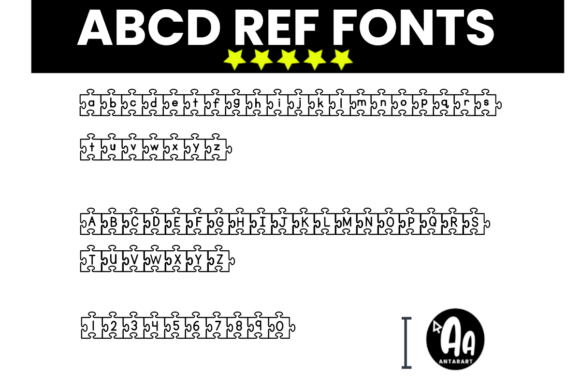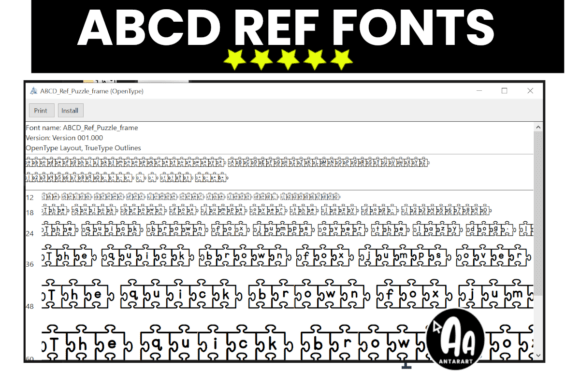
Make Learning the Alphabet Exciting with Alphabet Puzzle Font
Are you looking for a fun and engaging way to teach preschool and early elementary students the alphabet? Look no further than the Alphabet Puzzle Font! This innovative font takes learning to a whole new level by incorporating puzzle pieces into each letter, making it an excellent tool for building letter recognition, fine motor skills, and matching skills.
What is Alphabet Puzzle Font?
Alphabet Puzzle Font is a unique and interactive font designed specifically for educational purposes. Each letter of the alphabet is transformed into a puzzle piece, allowing children to learn and recognize uppercase and lowercase letters in a hands-on way. The font is perfect for creating engaging and interactive learning materials, such as bulletin boards, flashcards, centers, and literacy games.
Benefits of Using Alphabet Puzzle Font
The Alphabet Puzzle Font offers numerous benefits for young learners. Some of the most significant advantages include:
- Improved Letter Recognition: By using puzzle pieces to form each letter, children can develop a deeper understanding of letter shapes and forms.
- Enhanced Fine Motor Skills: As students assemble and match puzzle pieces, they refine their fine motor skills and hand-eye coordination.
- Boosted Matching Skills: The puzzle piece design encourages children to match uppercase and lowercase letters, promoting a stronger understanding of letter relationships.
- Increased Engagement: The interactive and hands-on nature of the Alphabet Puzzle Font makes learning fun and engaging, reducing the likelihood of frustration and boredom.
Creative Ways to Use Alphabet Puzzle Font
The versatility of the Alphabet Puzzle Font makes it an excellent addition to various educational settings and activities. Here are some creative ways to incorporate this font into your teaching practices:
- Bulletin Boards: Create eye-catching bulletin boards with alphabet puzzle pieces, highlighting a specific letter or theme each week.
- Flashcards: Design interactive flashcards with puzzle pieces, allowing students to match uppercase and lowercase letters.
- Centers: Set up engaging learning centers where students can assemble and match puzzle pieces, developing fine motor skills and letter recognition.
- Literacy Games: Develop board games, card games, or online games that incorporate alphabet puzzle pieces, making learning fun and competitive.
For designers and crafters, the Alphabet Puzzle Font offers a wealth of creative possibilities. Here are some tips to get you started:
- Experiment with Colors: Use a range of colors to create visually appealing puzzle pieces and make learning more engaging.
- Add Texture: Incorporate different textures, such as glitter or foam, to add a tactile element to your puzzle pieces.
- Mix and Match: Combine alphabet puzzle pieces with other educational elements, such as numbers or shapes, to create comprehensive learning materials.
- Get Creative with Materials: Use a variety of materials, such as cardstock, wood, or plastic, to create durable and long-lasting puzzle pieces.
| Font Name | Alphabet Puzzle Font |
| Author | AntarArt |
The Alphabet Puzzle Font is a game-changer for teaching young learners the alphabet. By incorporating puzzle pieces into each letter, this innovative font makes learning fun, engaging, and interactive. Whether you’re a teacher, designer, or crafter, this font offers a wealth of creative possibilities for developing educational materials. So why not give it a try and make learning the alphabet an exciting and hands-on experience for your students?